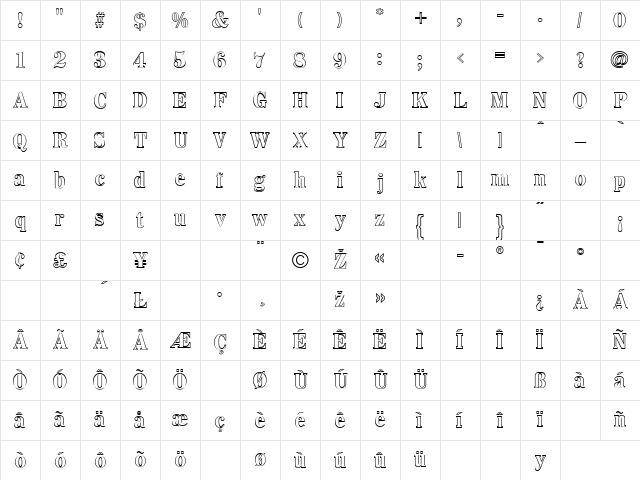
WhitinOutline Regular
Foundry: Digitized by Dan X. Solo. Software by Doiver Publications Inc
Design Context for WhitinOutline
WhitinOutline is built around its visual character rather than neutral utility - its distinctive forms are designed to make an impression at display sizes.
Font Pairing: Pair with a clean neutral sans-serif for body copy to let WhitinOutline's character lead without overwhelming the composition.
Pro Tip: Use WhitinOutline exclusively at display sizes - it was designed to be seen, not read at length. Let a neutral companion handle body copy.